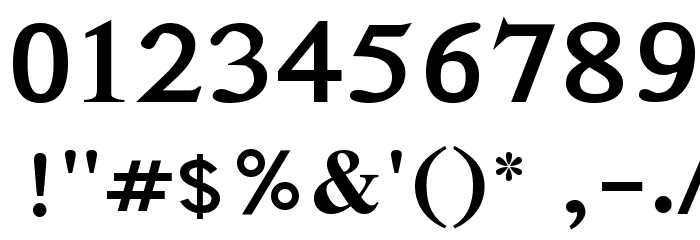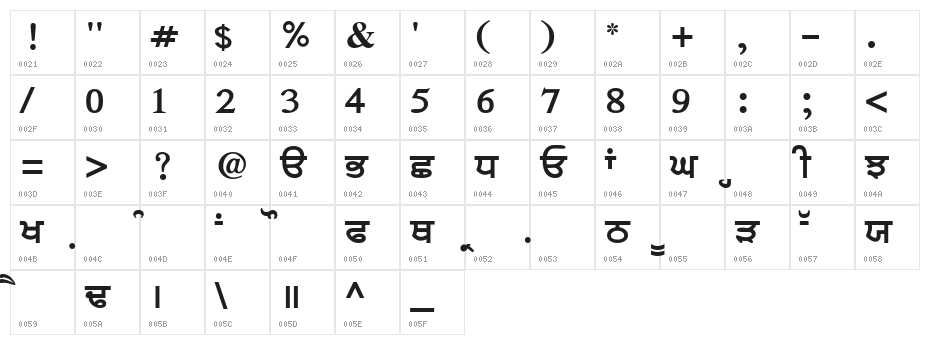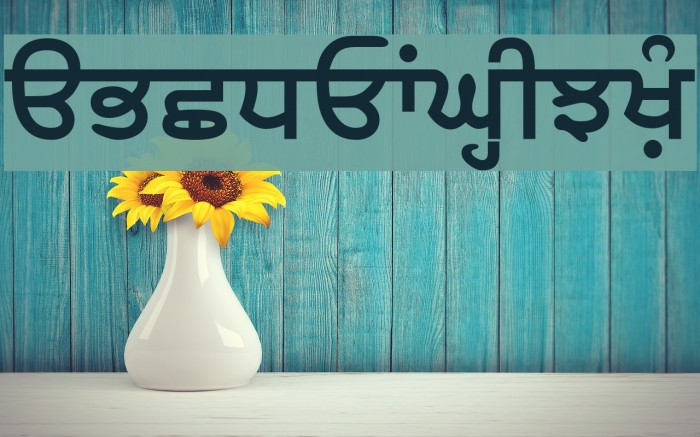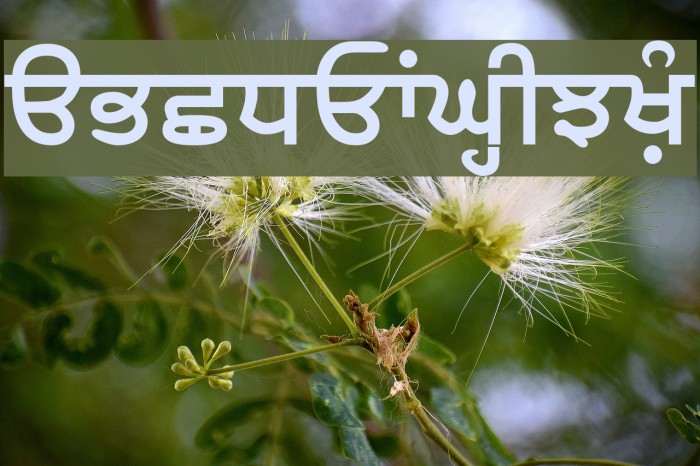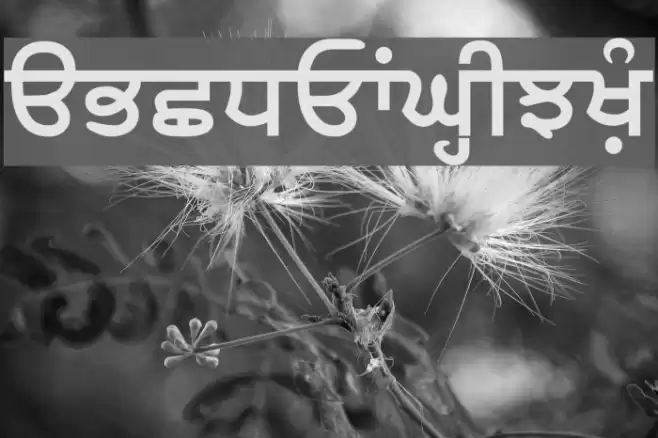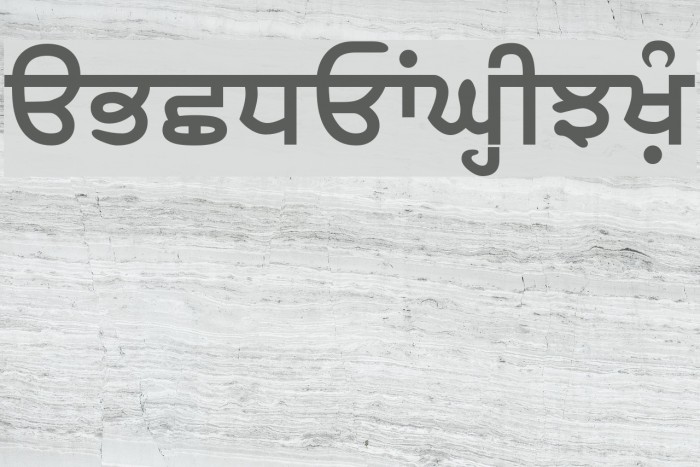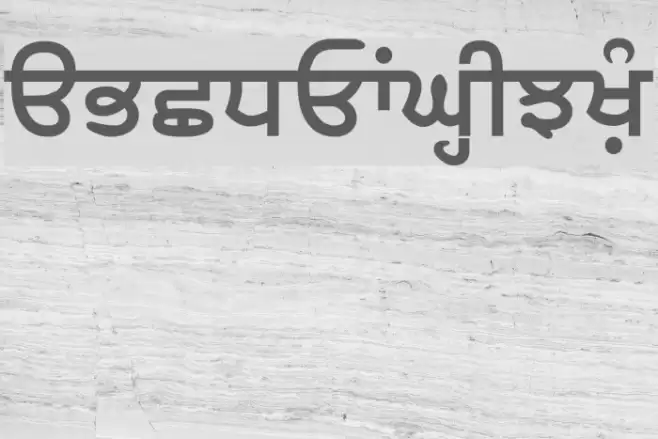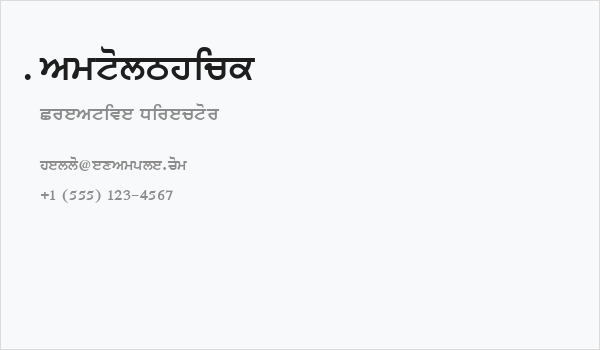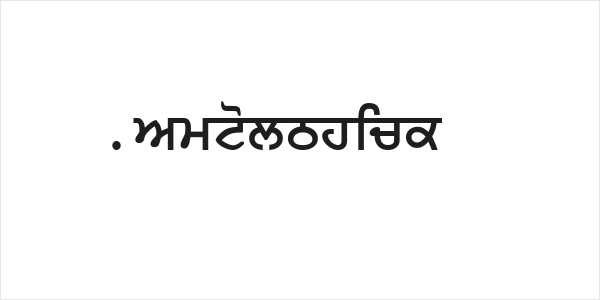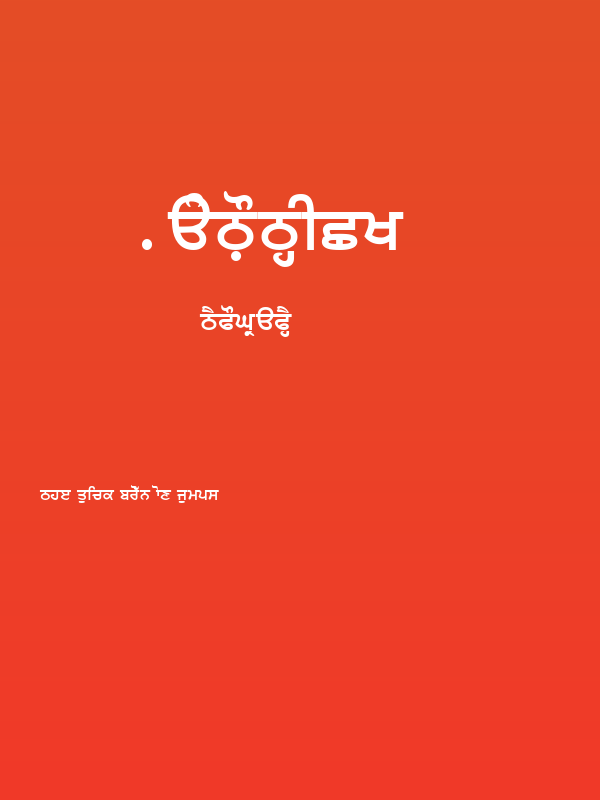
SamtolThick Font
SamtolThick Description
This font presents a bold and striking appearance, characterized by its thick strokes and strong presence. The characters are designed with a modern aesthetic, featuring clean lines and a uniform weight throughout. The numerals and special characters maintain the same boldness, ensuring consistency across all elements. The font's design is highly legible, making it suitable for various applications where clarity and impact are essential. Its robust structure and contemporary style make it a versatile choice for both digital and print media.
| Proposed Projects | Ideal for headlines, posters, branding materials, and digital content where a strong visual impact is desired. |